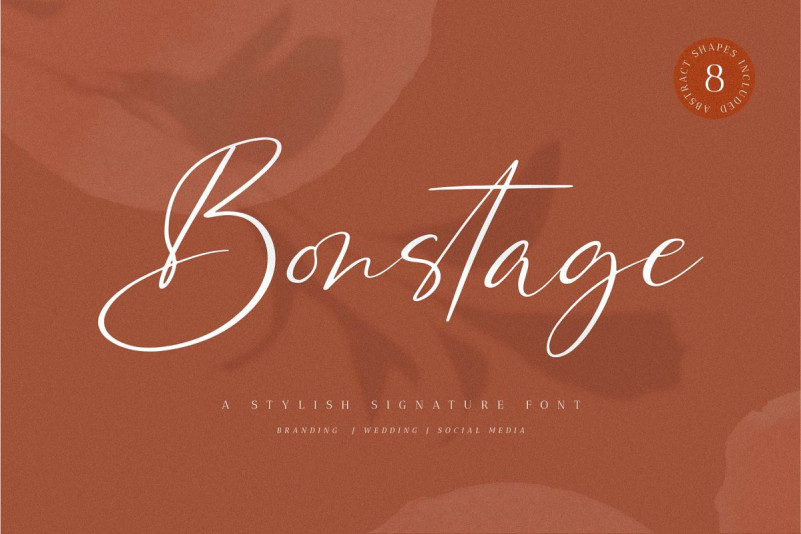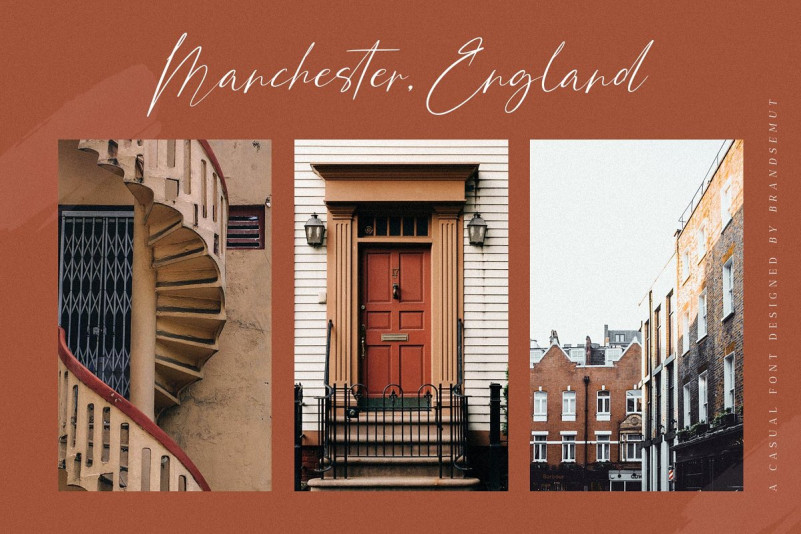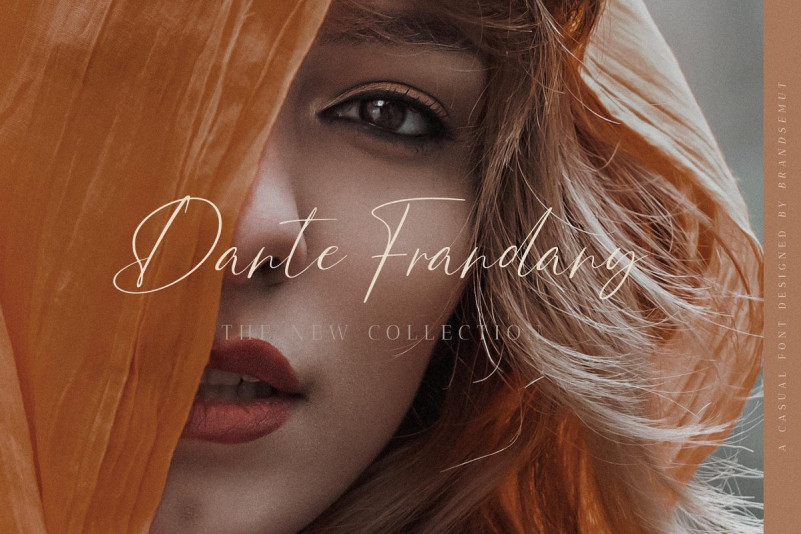
Bonstage Font
Please click and scroll through all the previews to see everything that is included. This is a Casual, Modern, Stylish, Classy script font, And collection of professional hand-drawn quality illustrations Bonus, and I hope you love every moment of using them!